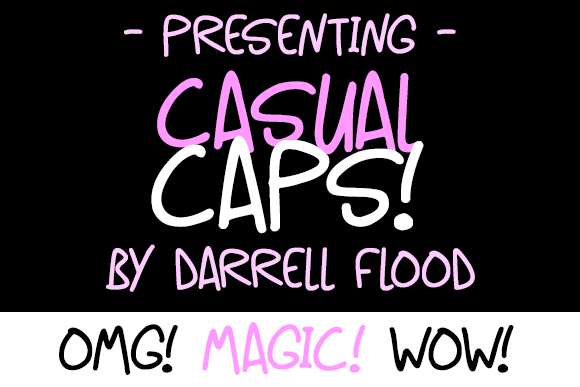
Casual Caps Font
About Casual Caps Font
Casual Caps is a freehand, felt-tip marker font in a casual style. Perfect for adding a natural, friendly touch to your designs!